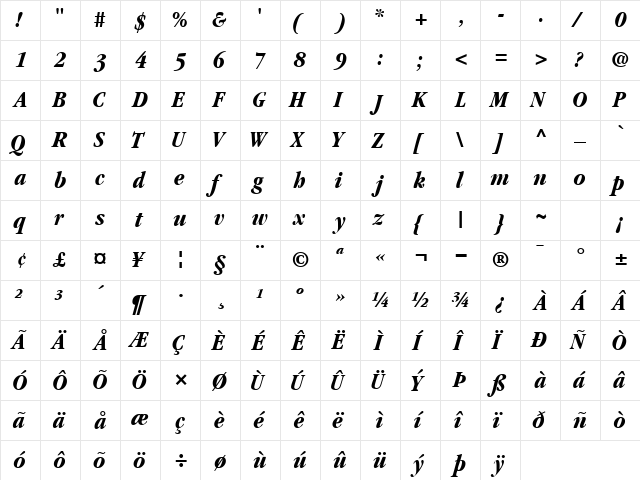
GaramondBlackCondSSK Italic Font Preview
Design Context for GaramondBlackCondSSK Typeface
GaramondBlackCondSSK offers clean, dependable letterforms without strong stylistic allegiance, making it a practical choice for designers who need flexibility. The dynamic lean of this cut emphasises speed and emphasis in any layout. Its narrow stance lets it pack a punch even in space-constrained designs.
Pro Tip: Use GaramondBlackCondSSK for emphasis, pull quotes, and subheadings where its slanted energy can add rhythm to the layout.